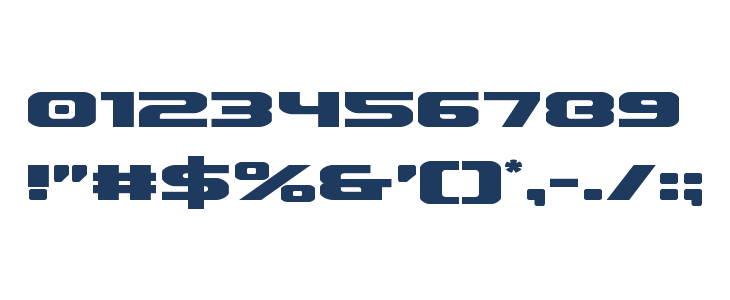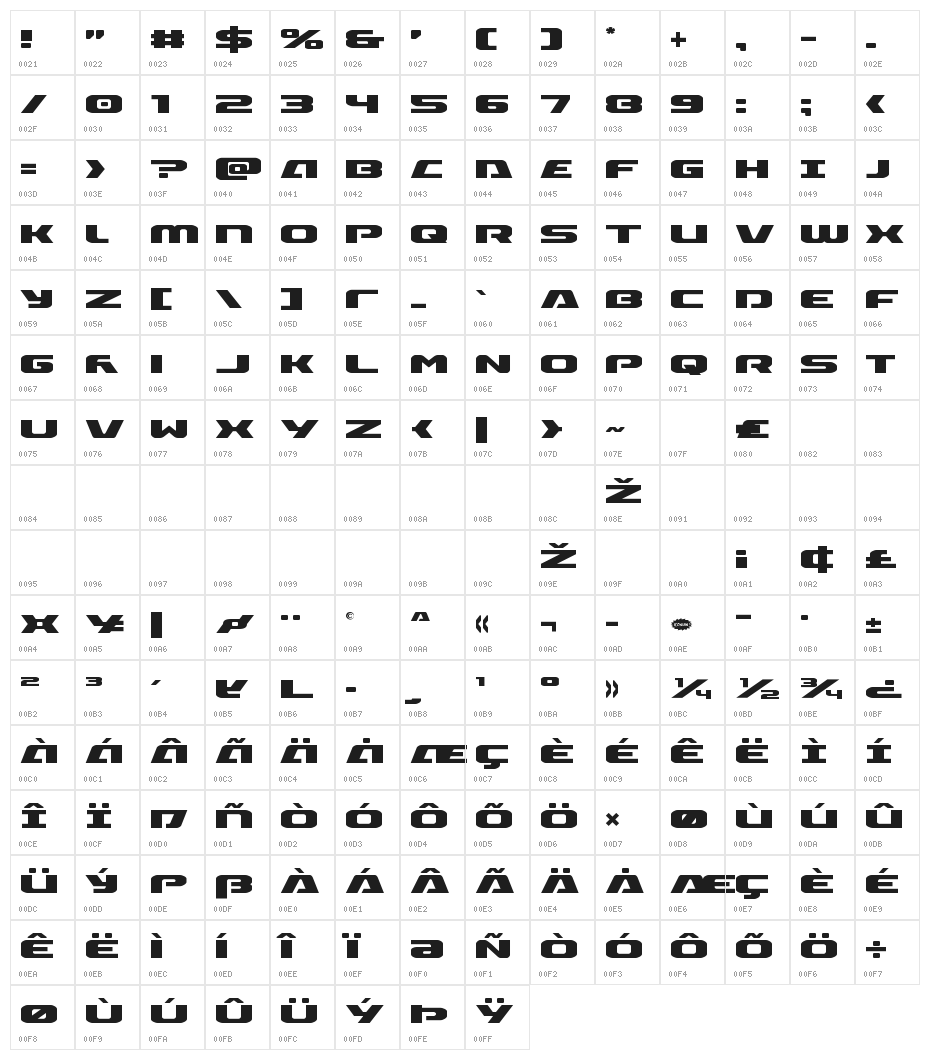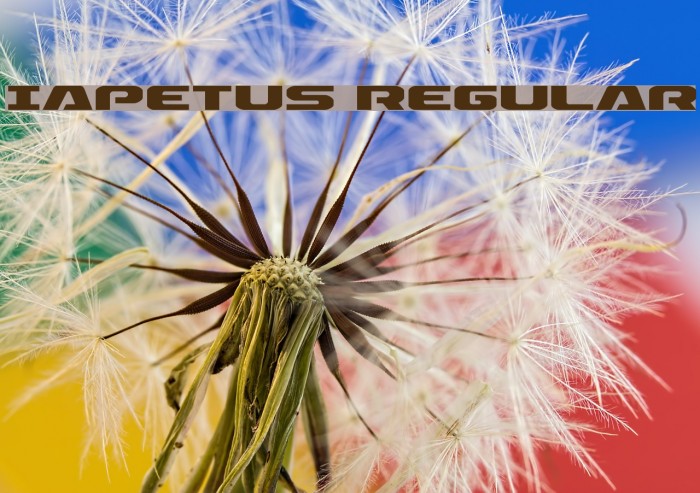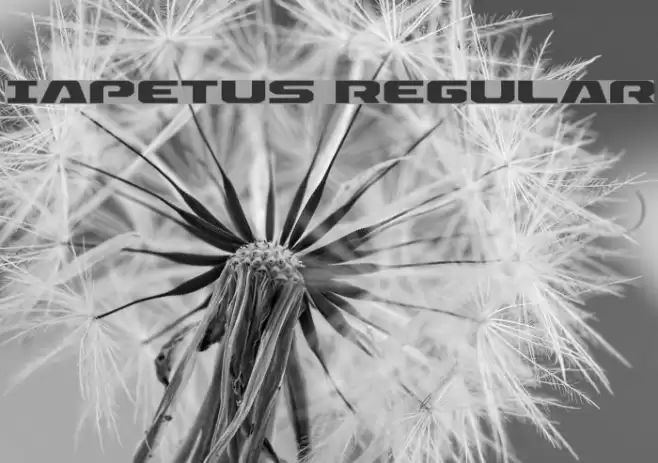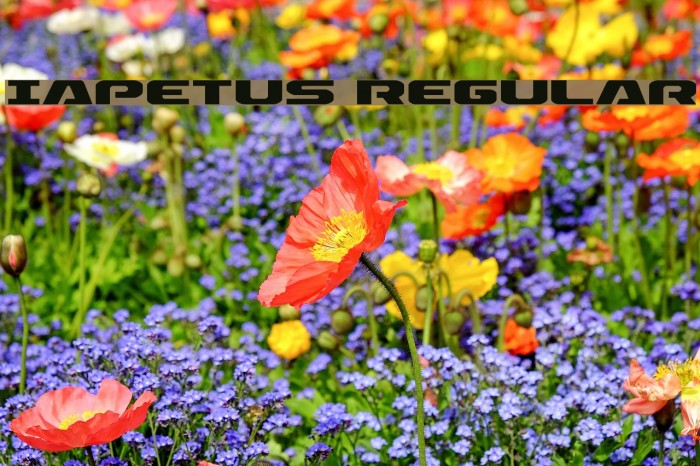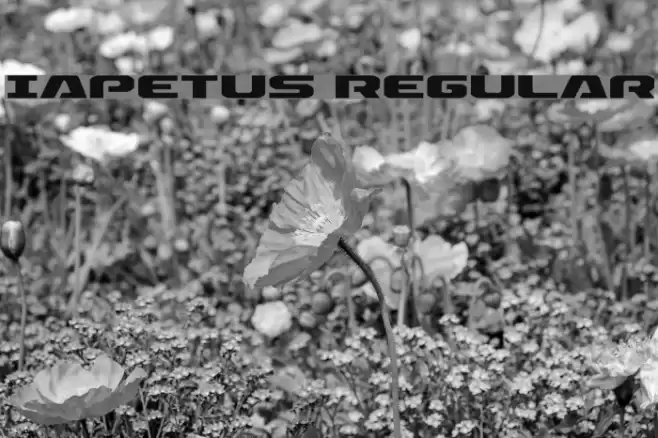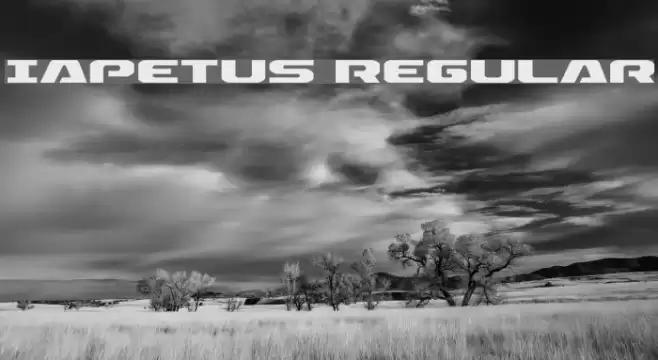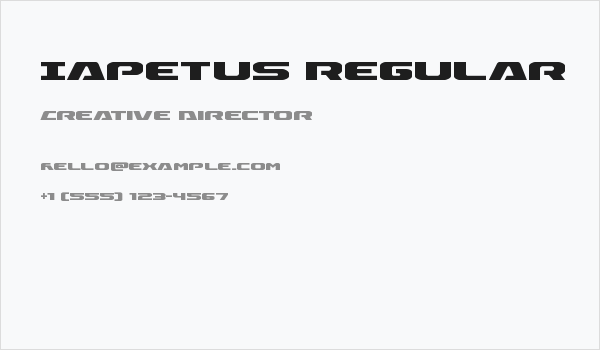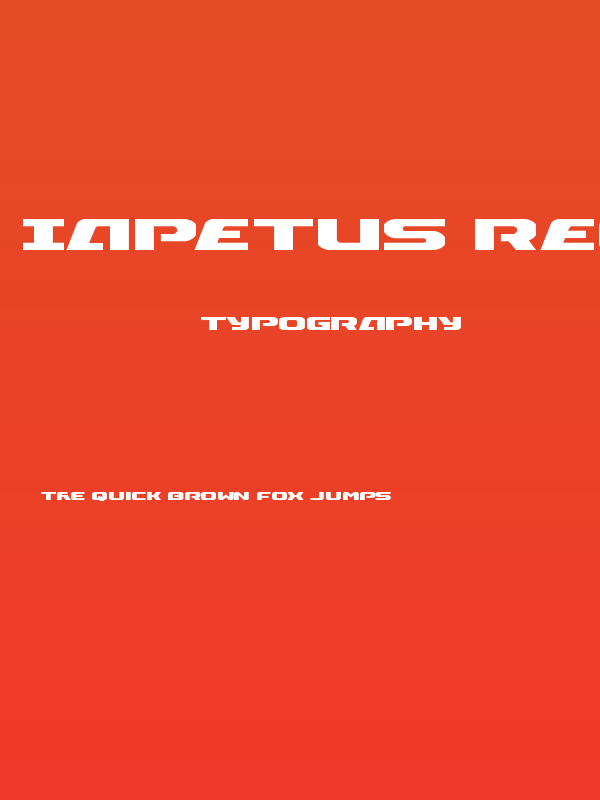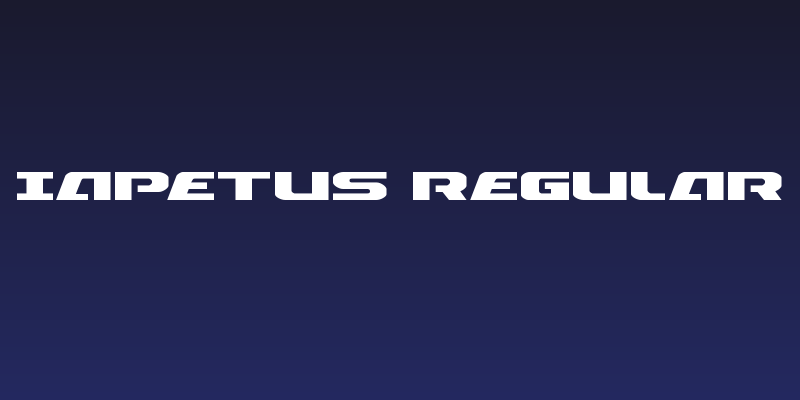
Iapetus Regular Font
Iapetus Regular Description
This font features a bold and futuristic design with a strong geometric influence. The characters are wide and have a distinct angular style, giving them a modern and tech-inspired appearance. The uppercase letters are particularly striking, with sharp edges and a consistent thickness throughout. The numbers and special characters maintain this bold aesthetic, ensuring a cohesive look across all glyphs. The font's unique style makes it ideal for projects that require a strong visual impact.
| Proposed Projects | Ideal for technology branding, sci-fi themed projects, video game titles, and modern poster designs. |